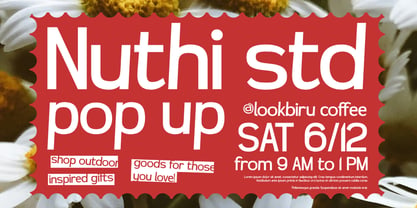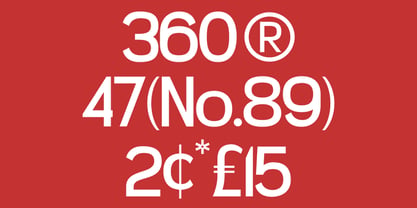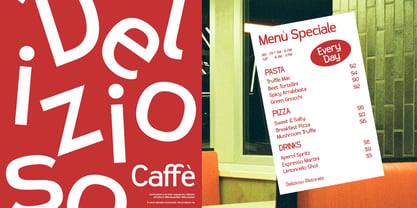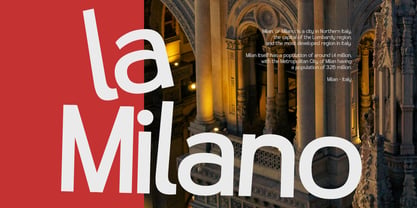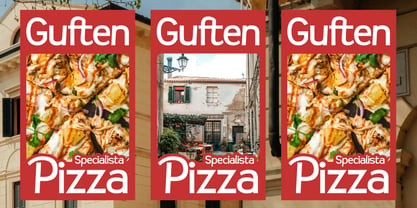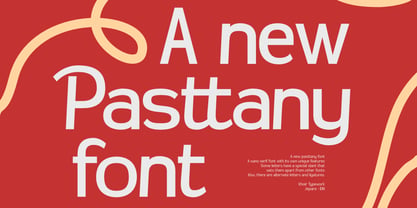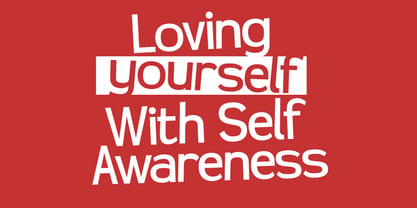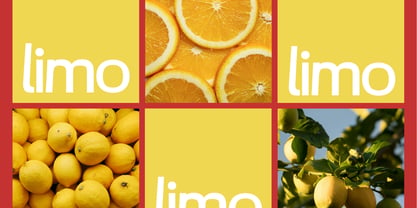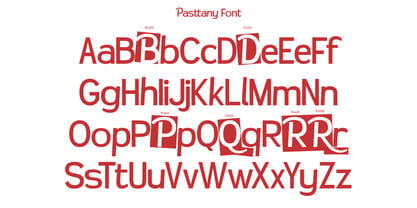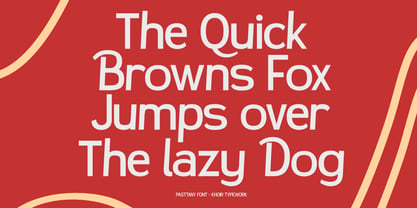
Pasttany
The Pasttany Font Family was designed by Muhammad Romzul Khoir and published by Khoir. Pasttany contains 1 styles. More about this family
This sans serif font is inspired by the shape of noodles or pasta, which are bendable yet stable, conveying a sense of simplicity, durability, and continuity. Its slanted strokes give it a distinctive look and unique characteristics, making it perfect for use in food and beverage packaging, logos, covers, posters, quotes, and more. Pasttany Uppercase Lowercase 75+ Language Alternate Ligature So what are you waiting for? immediately purchase this font, feel free to comment, or send me my PM Thank you for seeing
Pasttany